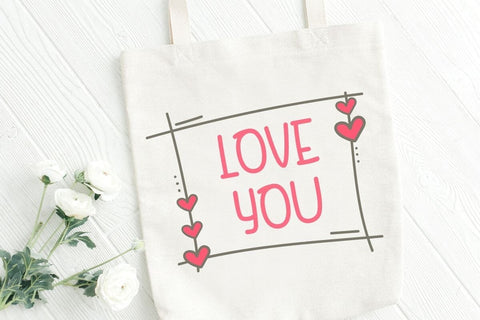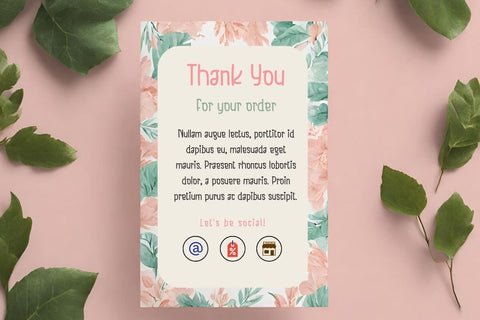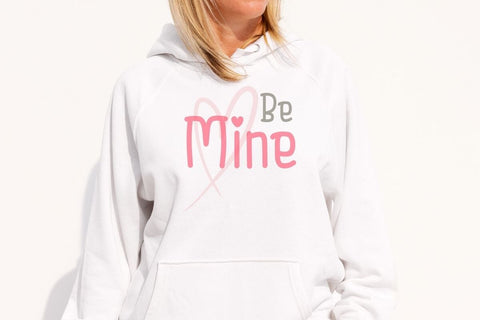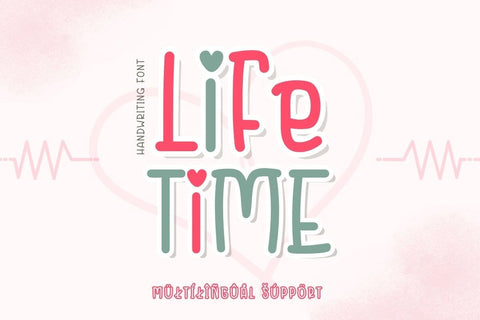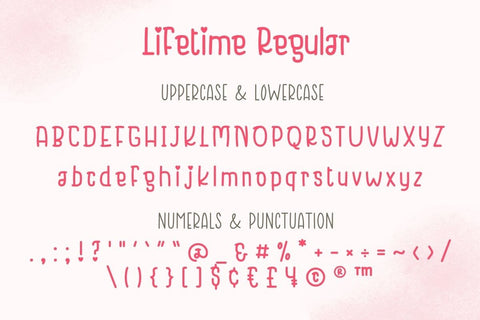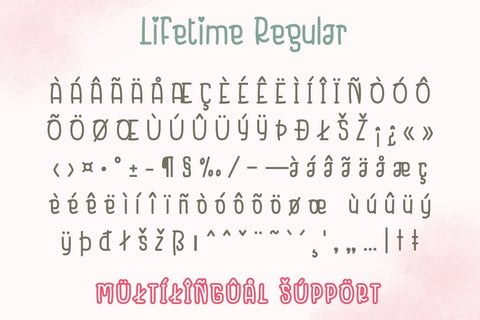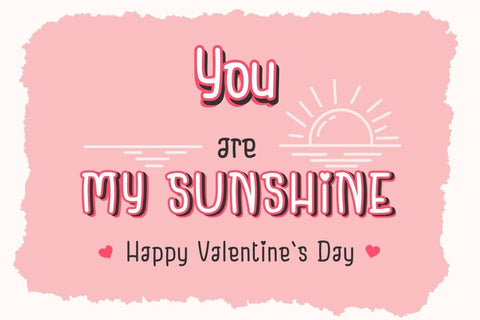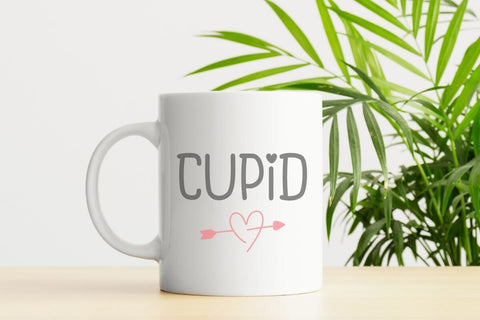
Lifetime - Handwriting Font
Lifetime is the charming handwriting font that will add a touch of sweetness to your creative projects. You'll have endless opportunities to infuse your designs with a unique, handwritten charm.
This font is perfect for a wide pool of design ideas and products such as banners, mugs, cards, shirts, stationery, social media posts, and more!